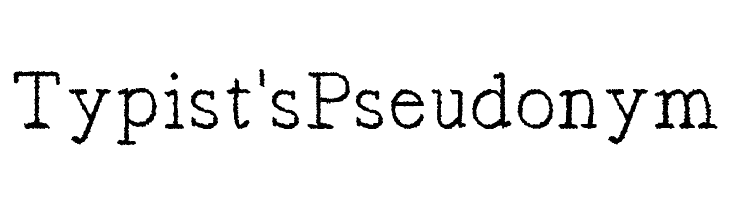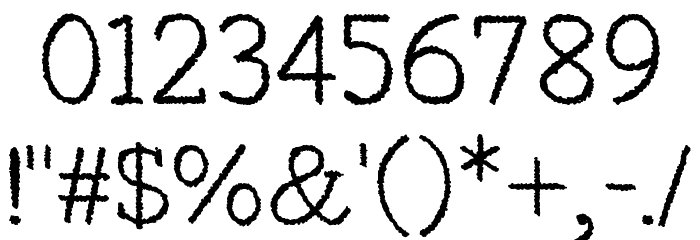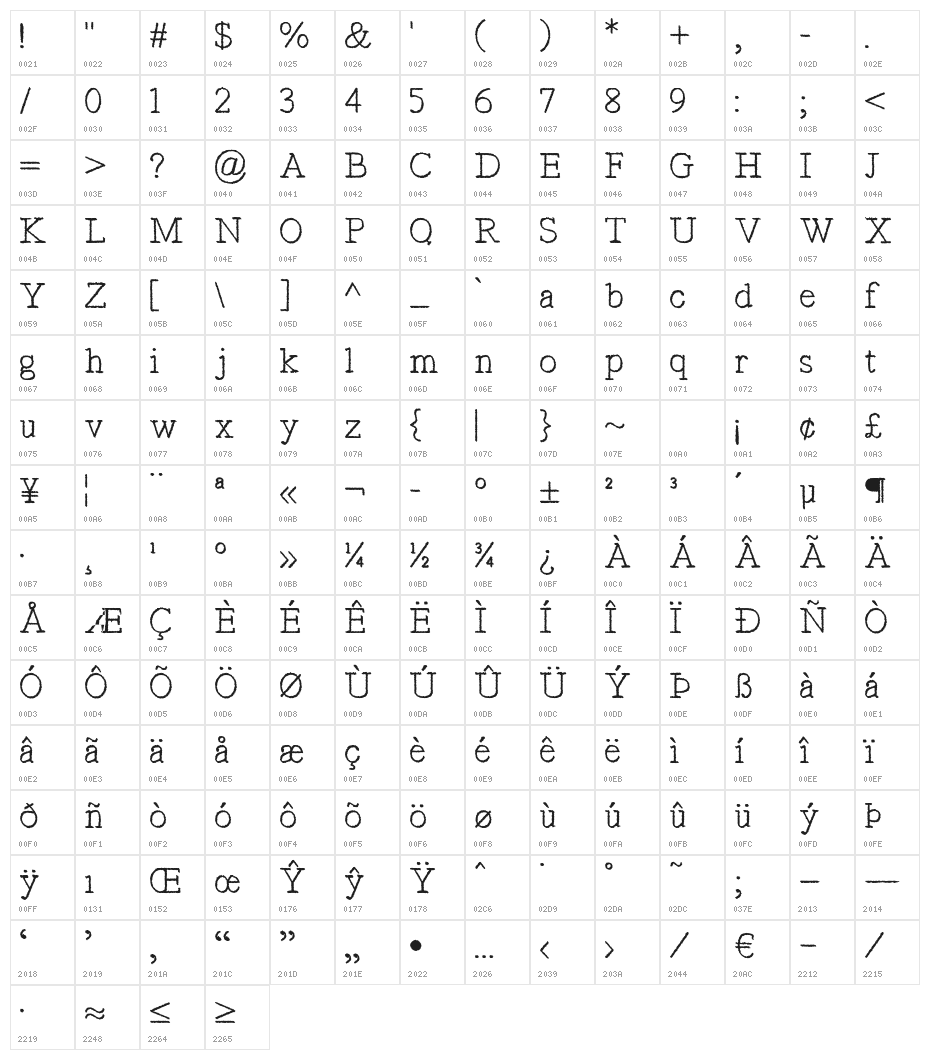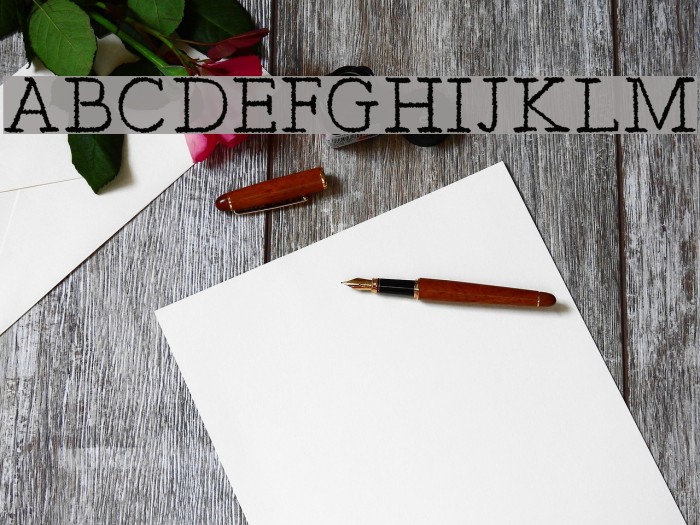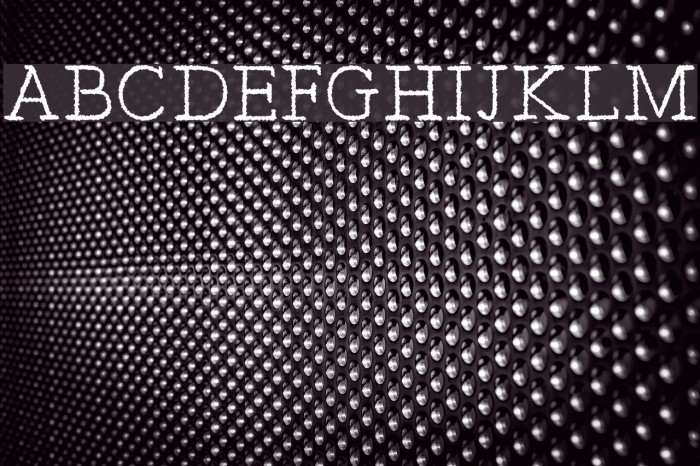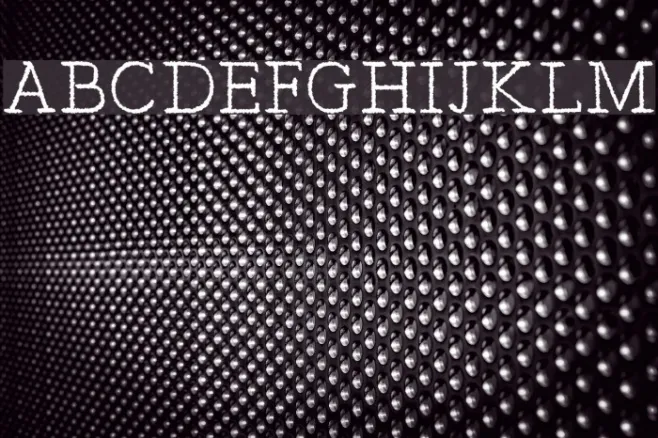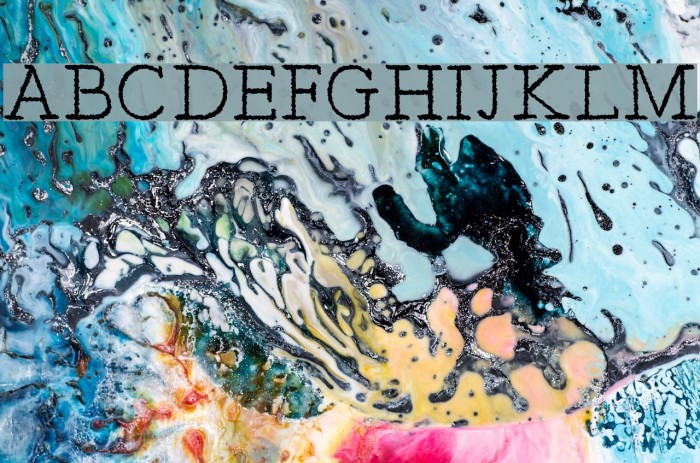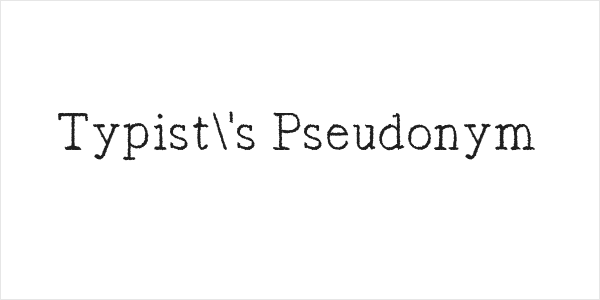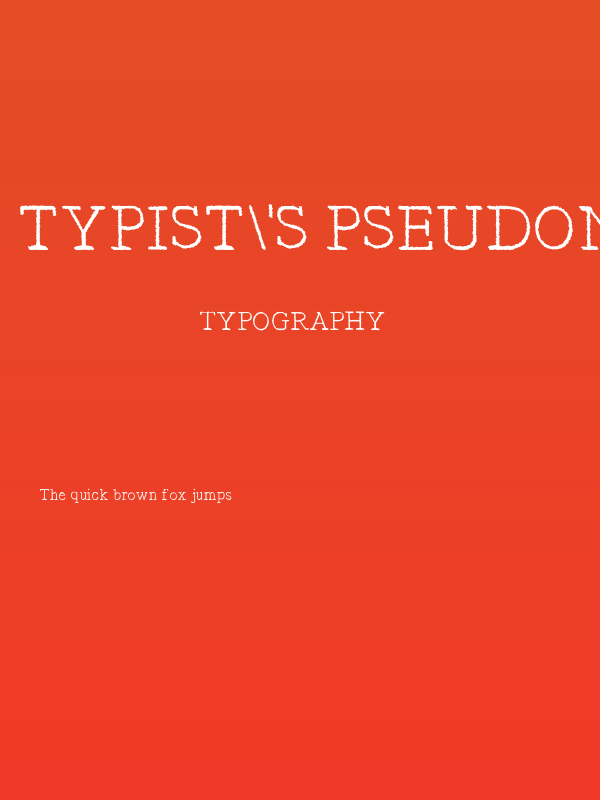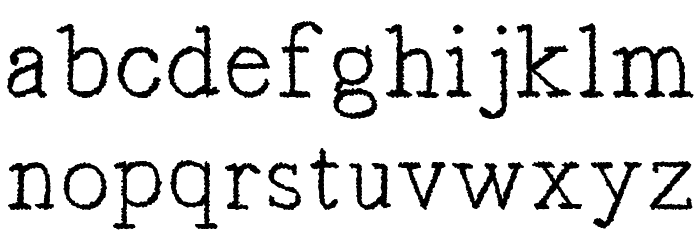
Typist's Pseudonym Font
Typist's Pseudonym Description
This typeface exudes a vintage typewriter charm, characterized by its monospaced letterforms and slightly irregular edges, reminiscent of classic typewritten text. The uppercase and lowercase letters maintain a consistent width, contributing to a uniform appearance. The numerals and special characters follow suit, ensuring a cohesive look across all glyphs. The subtle texture within each character adds a tactile quality, enhancing its nostalgic appeal. This font is ideal for projects seeking a retro or analog feel, offering a blend of readability and stylistic flair.
| Proposed Projects | Ideal for retro-themed designs, typewriter art, vintage posters, and stationery. |